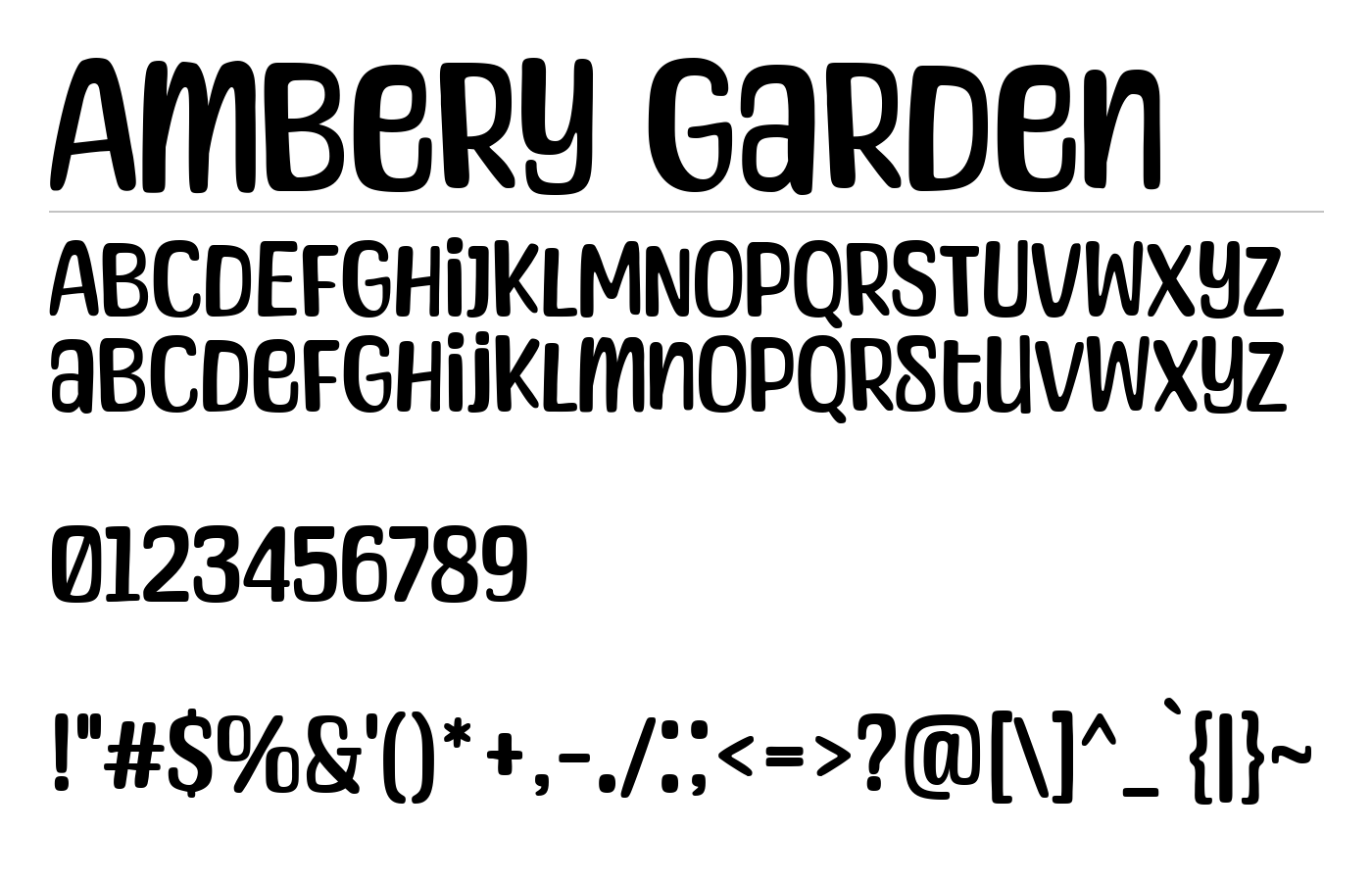
Ambery Garden is a playful, casual sans serif font with a slightly condensed width and a friendly, hand-drawn feel. Its tall x-height and uniform stroke weight create clear readability, while the quirky, rounded letterforms add personality perfect for informal, creative, or youthful branding. This font works best for headlines, packaging, and designs aiming for an approachable, fun, and modern look.
Ambery Garden Font
About Ambery Garden Font
| Font family | Ambery Garden Font |
| Designer | Ali Hamidi |